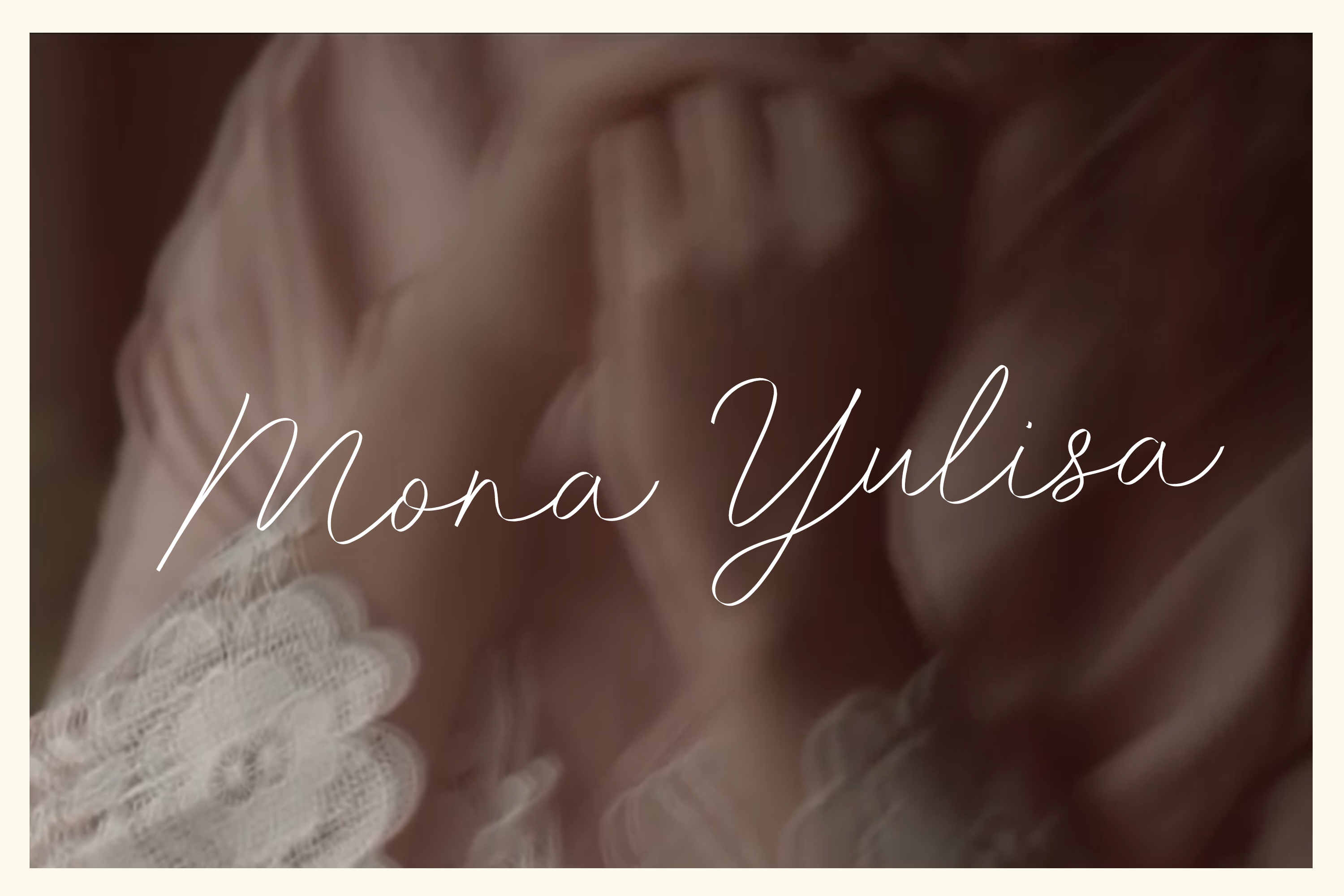
Idana Luisa Script Font
Idana Luisa is a beautiful and contemporary signature font, perfect for use in fashionable editorials and more. This font has a free-flowing and feminine appeal, and works well in titles and headlines.
Designer Name: | Guiltype Studio |
Classification: | Handwritten, Script |